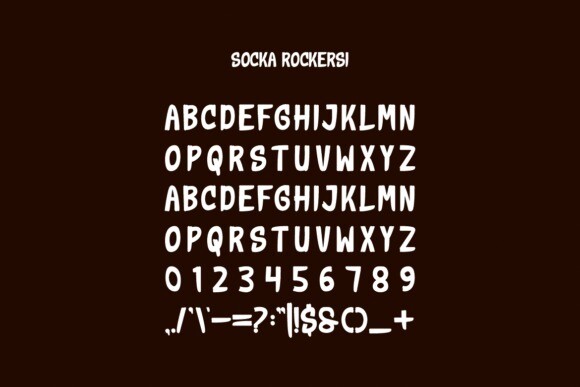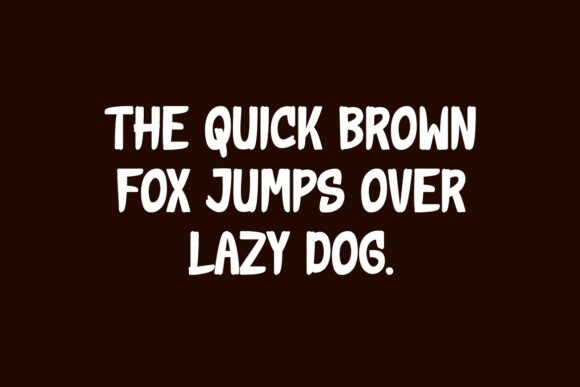
Socka Rockers Font
Socka Rockers Font is a fun, bold marker-style font that looks like it was written with a thick marker. It has a playful, handwritten feel, making it great for casual or creative designs. The letters are slightly uneven, adding to its relaxed and energetic vibe.